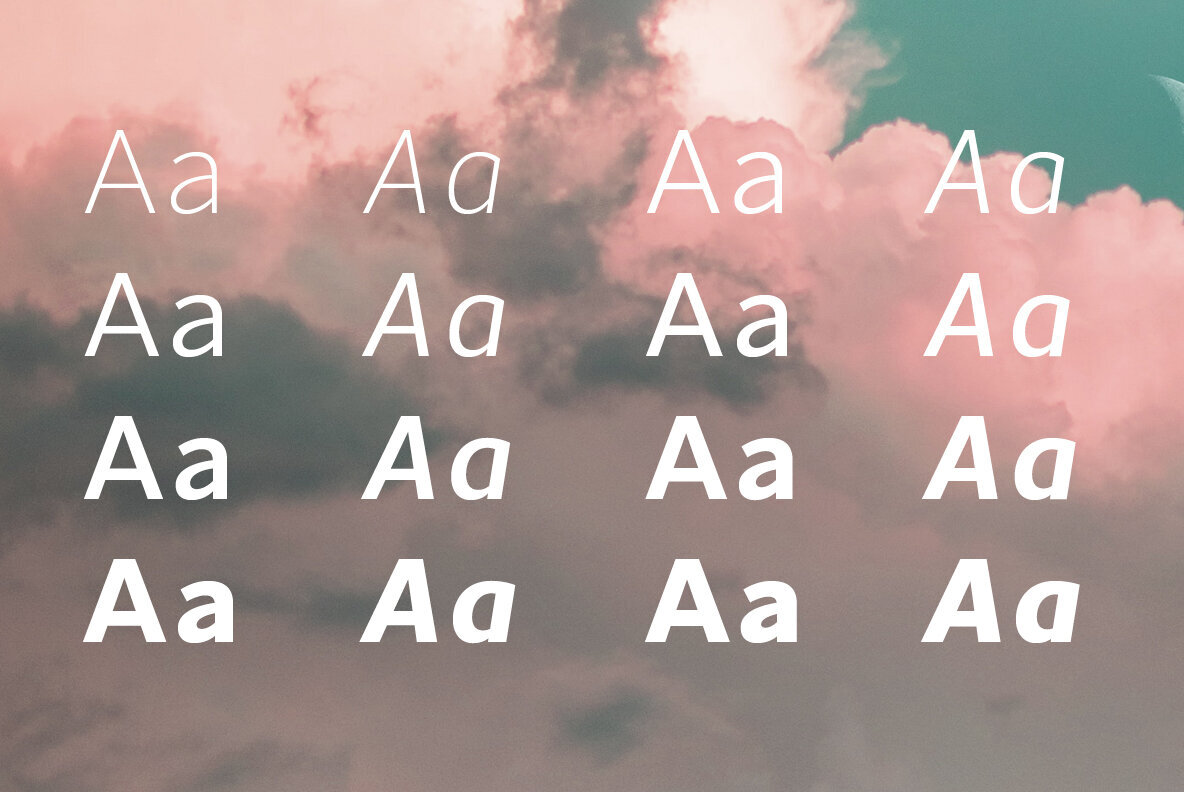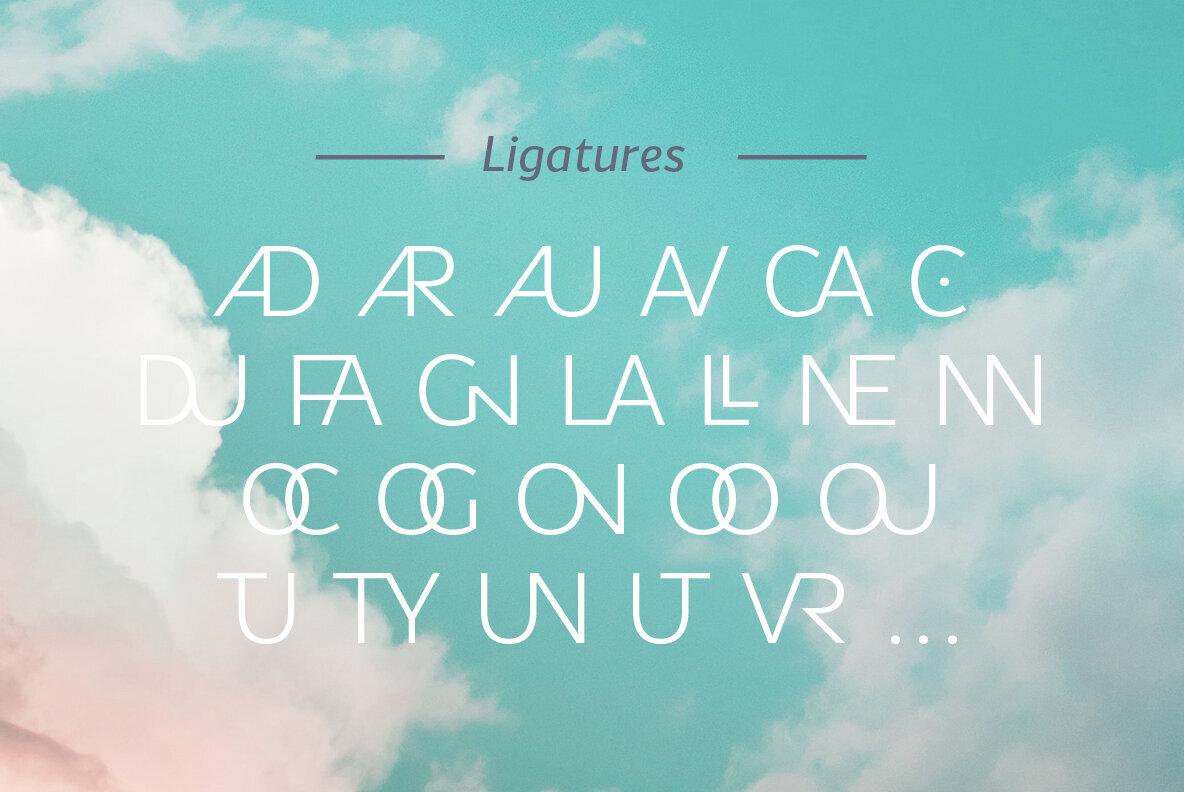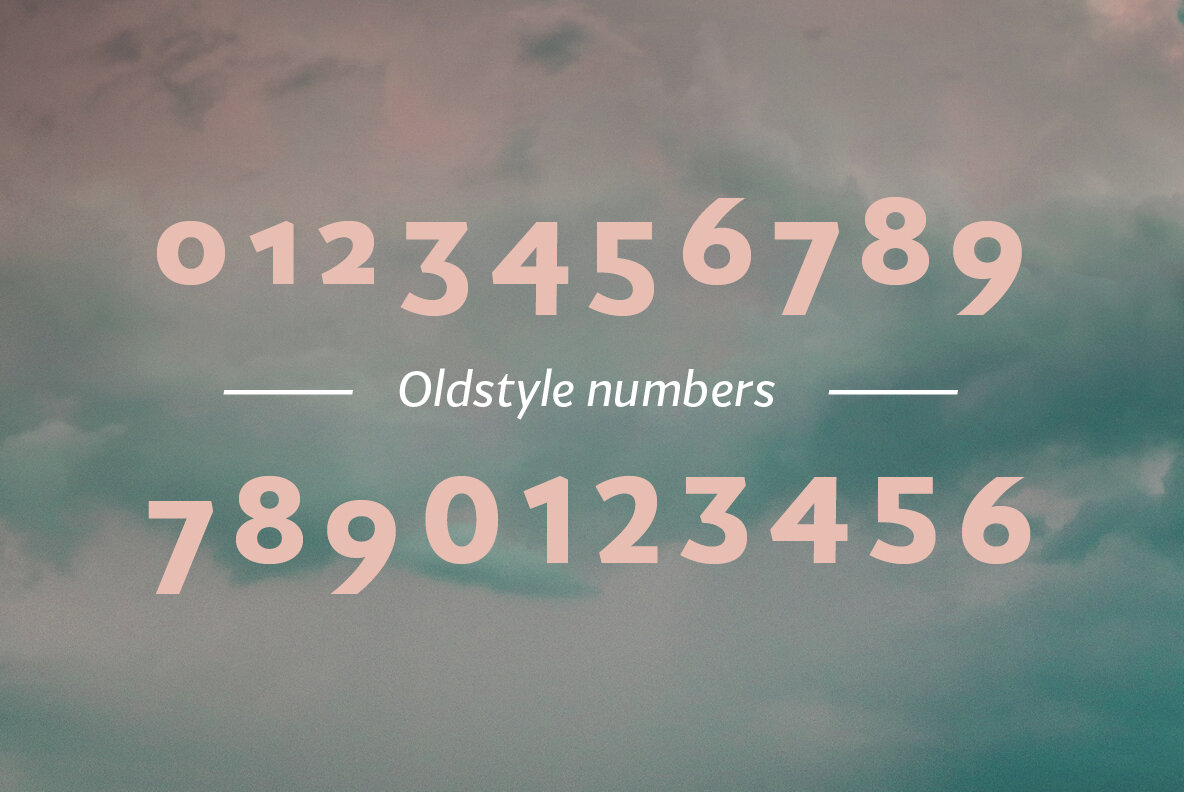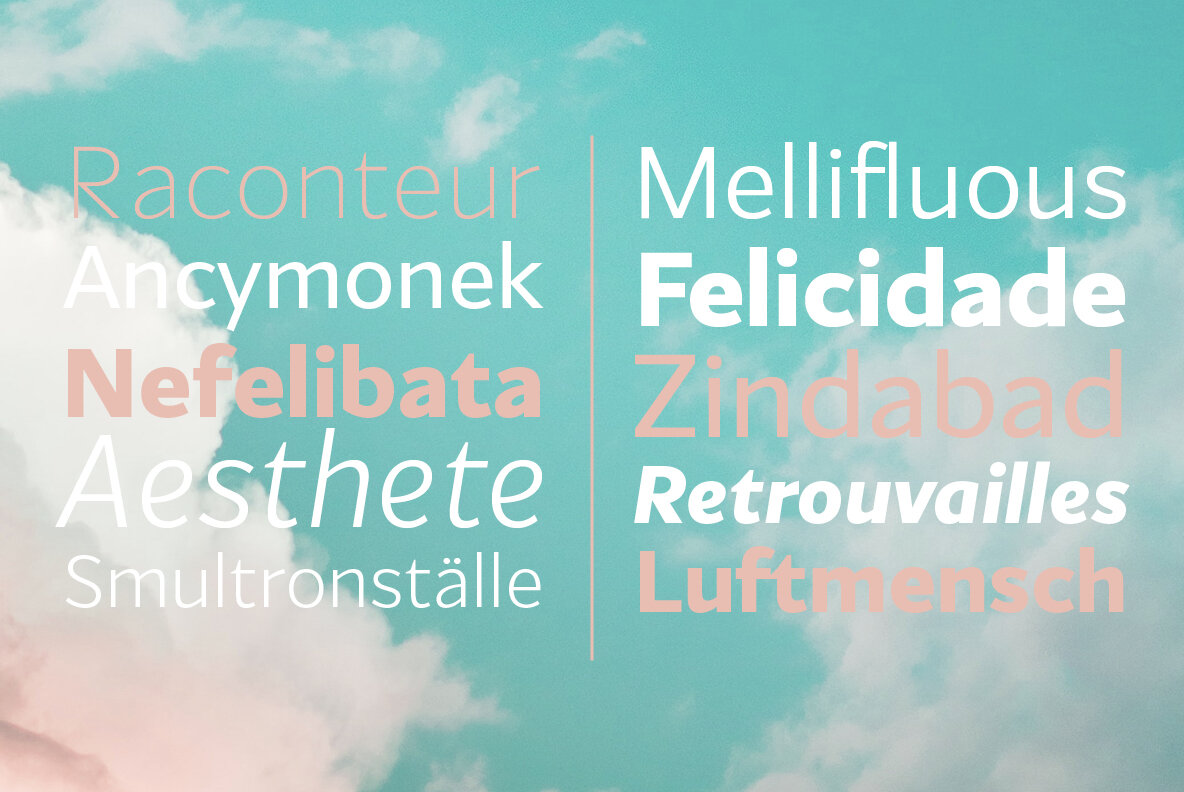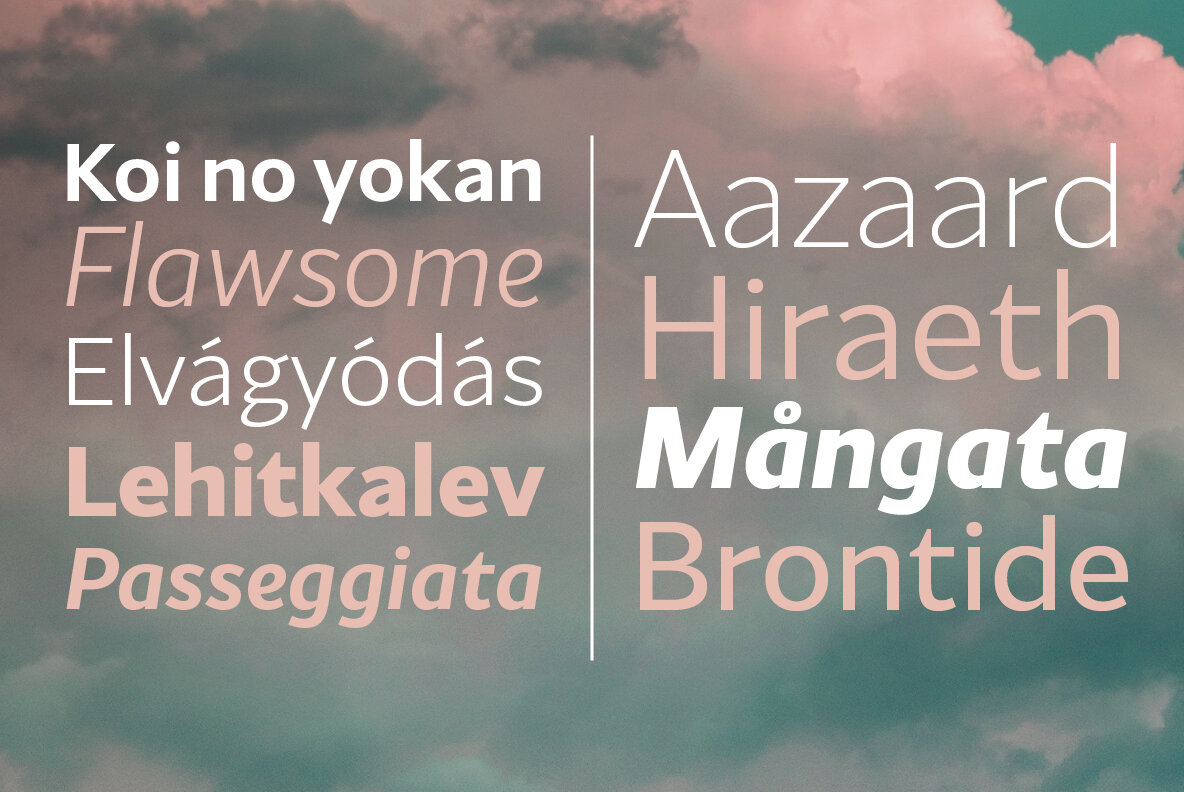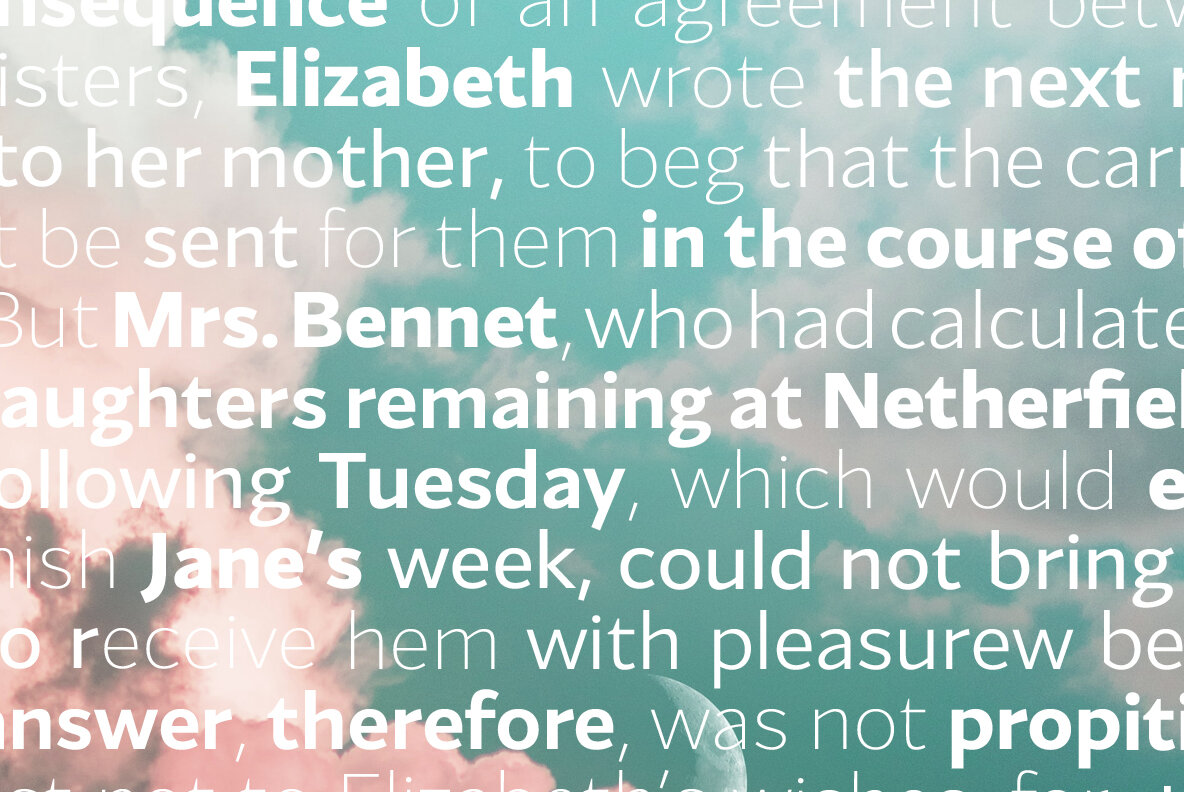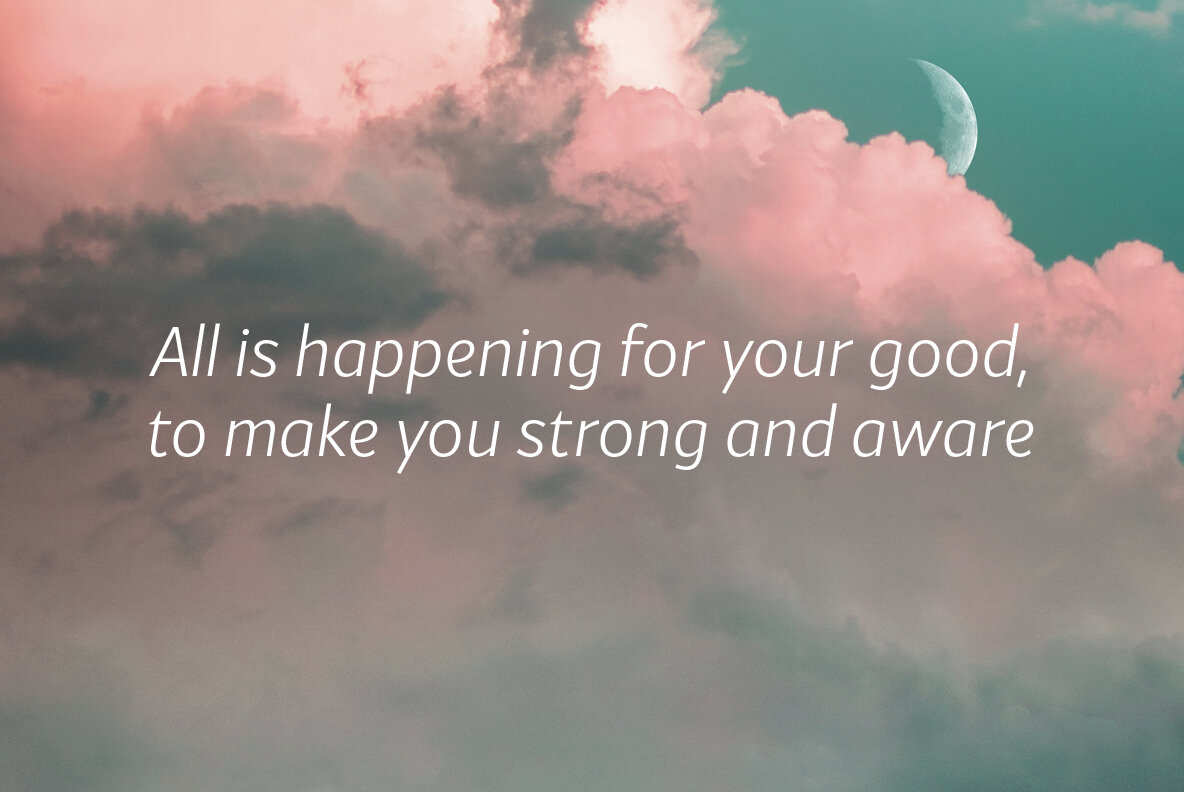
Honesty Sans 1
Honesty was the first font published by the Studio in 2020. It was a typeface with flared stems. 2 years later, we are now publishing Honesty Sans. It is inspired by the original design but is revisited as a sans serif this time.
Honesty Sans keeps the inspiration from the incise genre and font such as Albertus or the Trajan but with softness, thanks to its low contrast and smooth curves.
Honesty Sans is highly legible and offers a variety of use, from titles, editions of texts, branding, magazines and so on. Its large variety of glyphs, including accents, old-style numbers and ligatures will give uniqueness to your designs.
Honesty Sans is available in 16 styles, from thin to heavy in roman and italic.